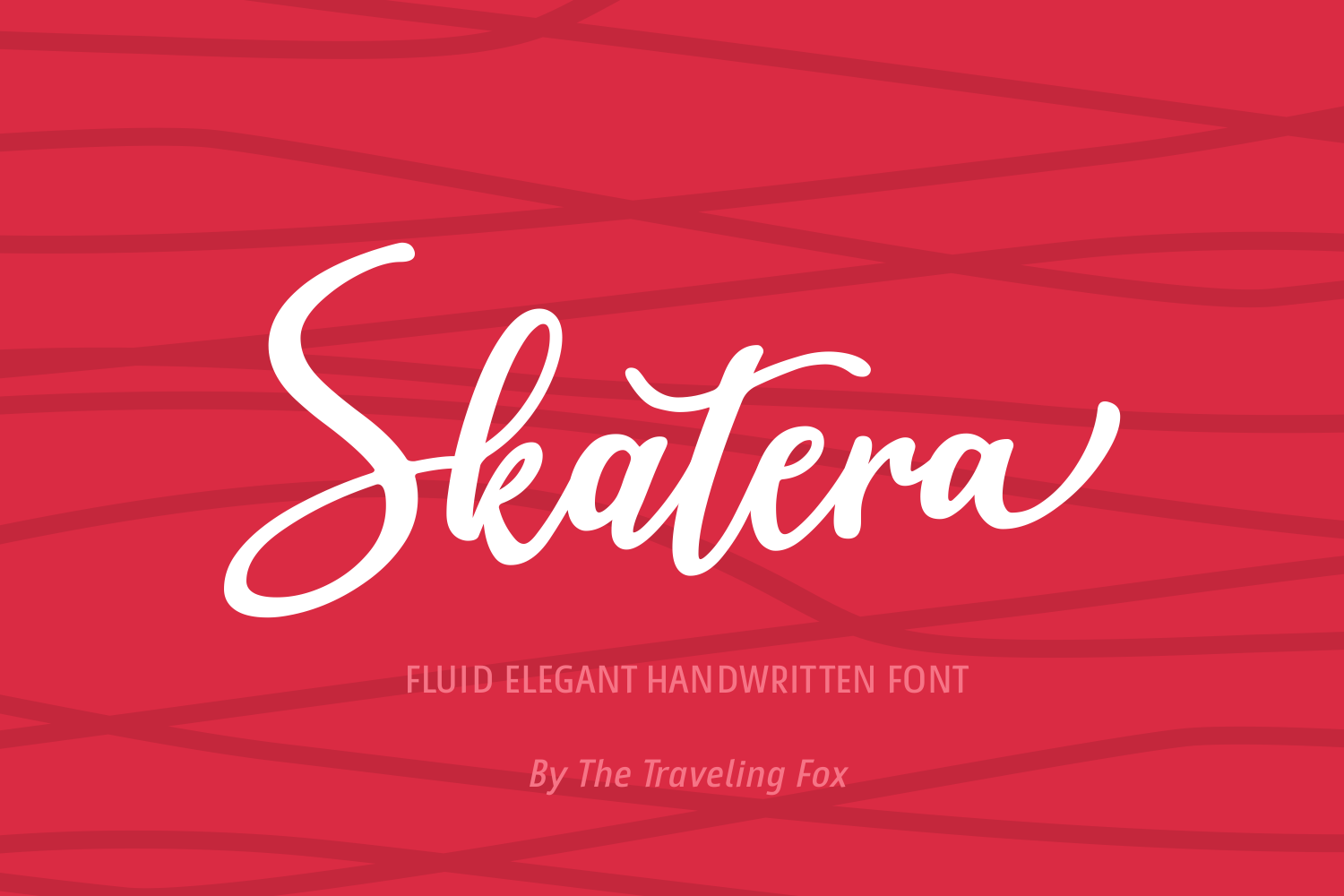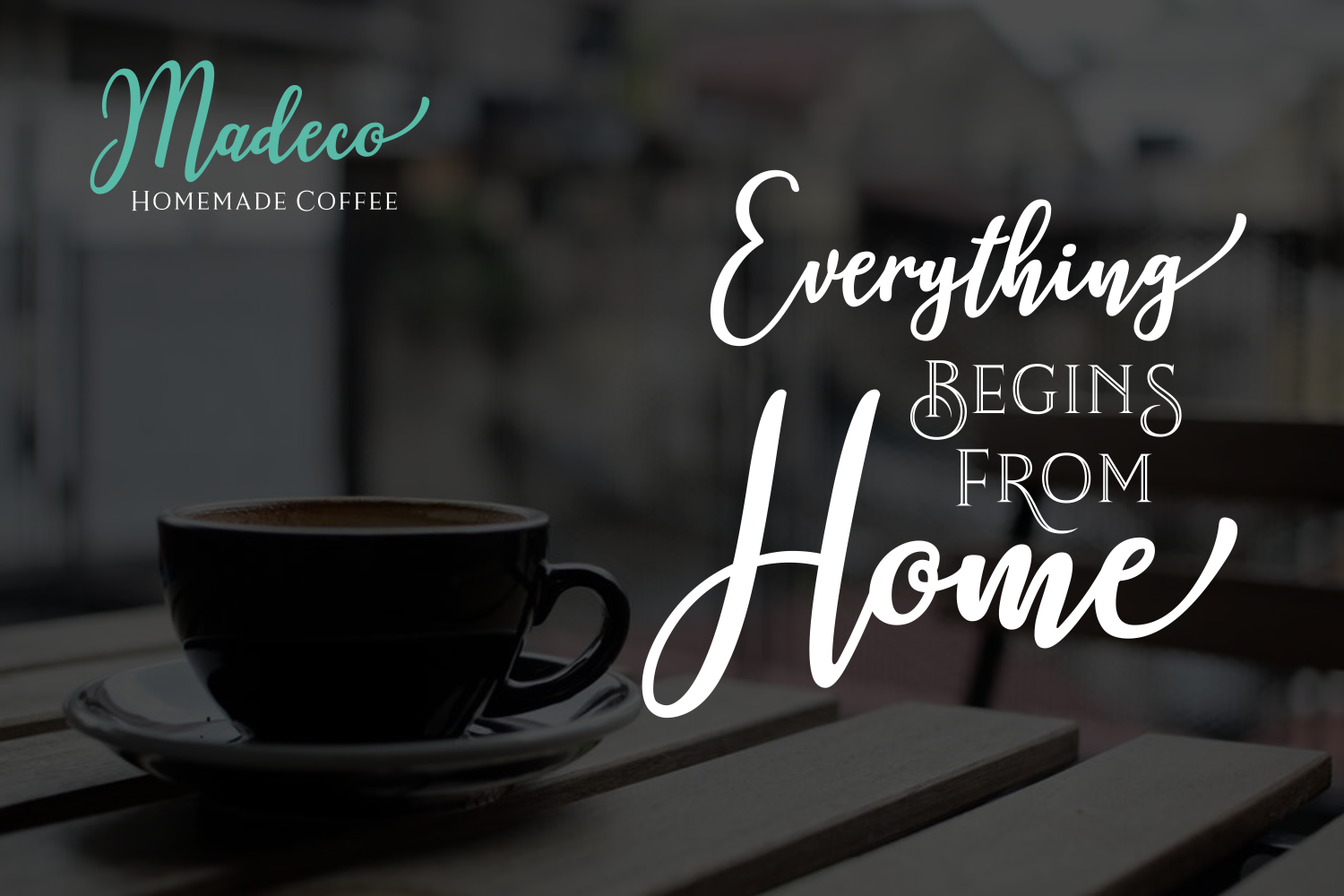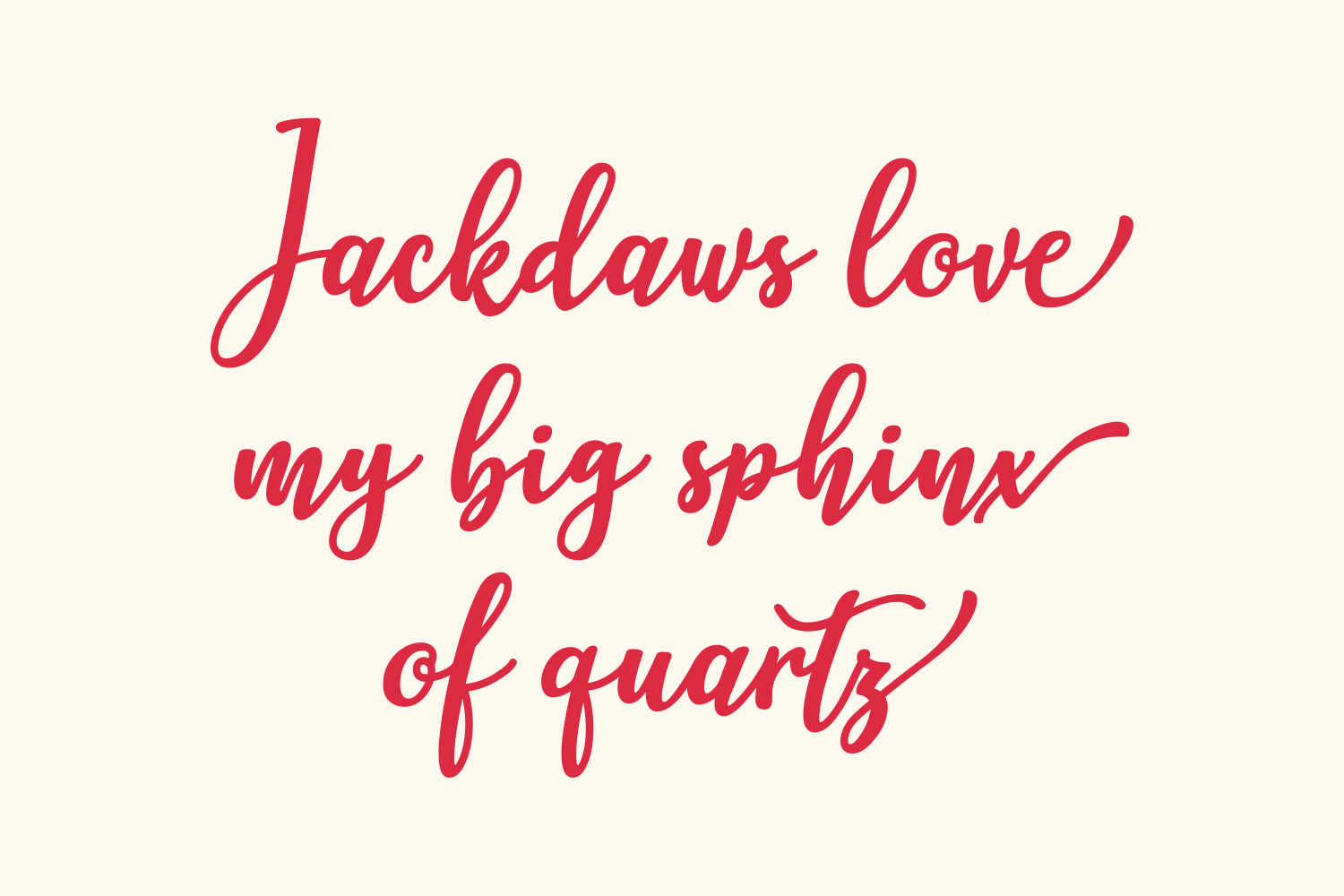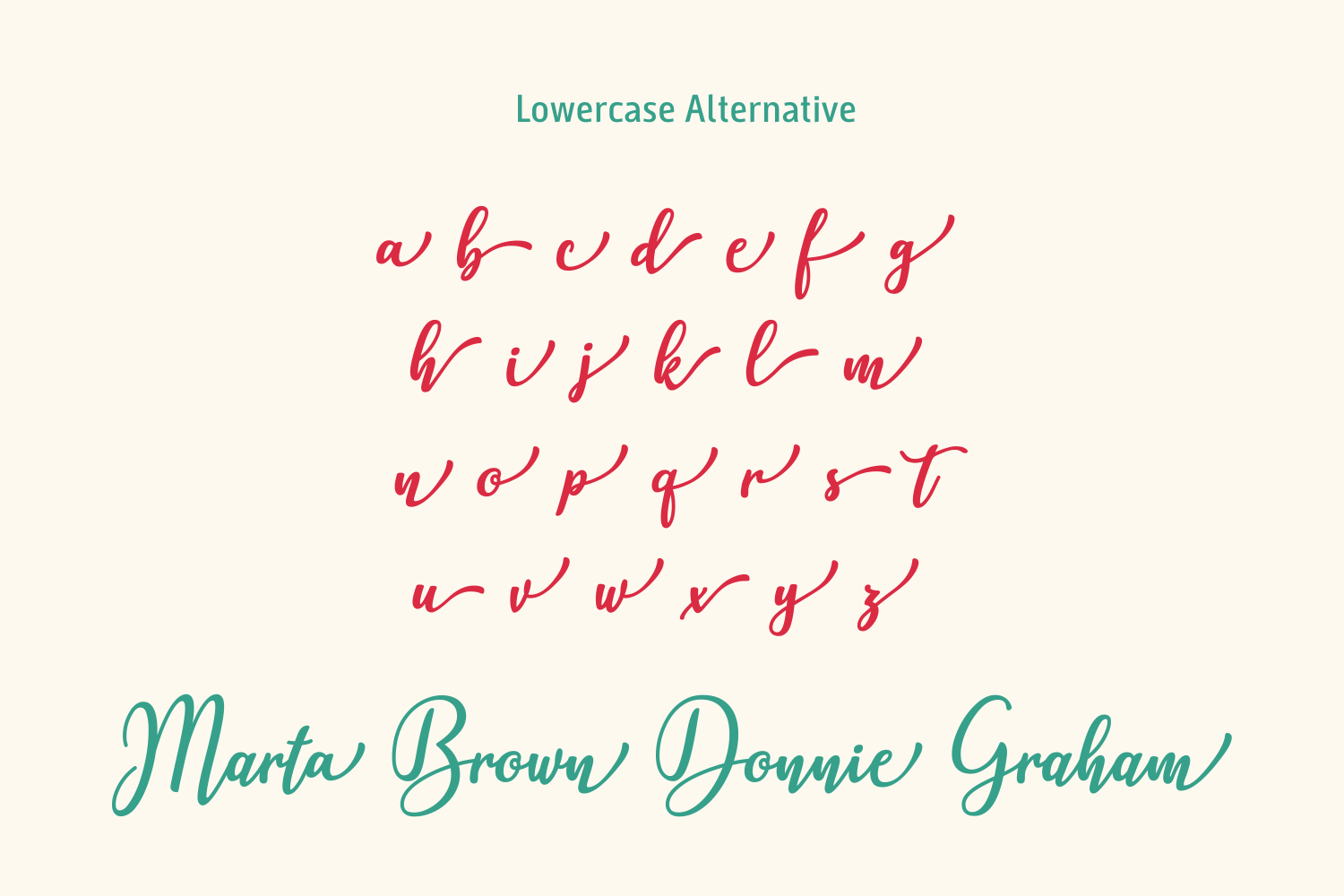
Skatera is an elegant and fluid script font, perfect for a large number of projects and designs that need an added element of warmth and sophistication. With an irregular baseline and solid strokes, Skatera is a font you’ll use over and over again.
Its graceful curves and natural flow make it ideal for wedding designs, branding, logos, quotes, and more. Skatera brings a handcrafted feel while maintaining a refined presence, adding charm and personality to any creative work.